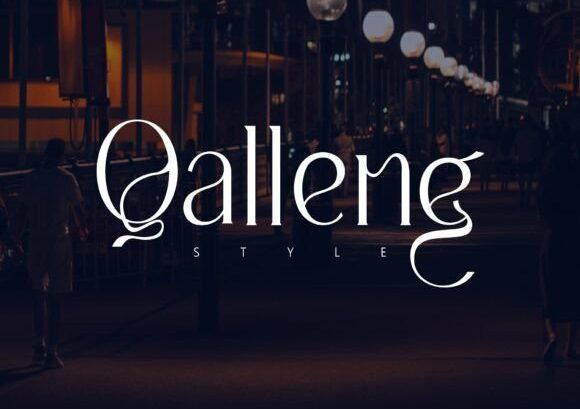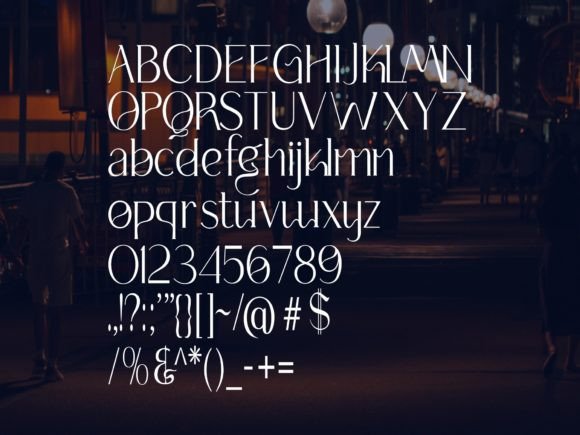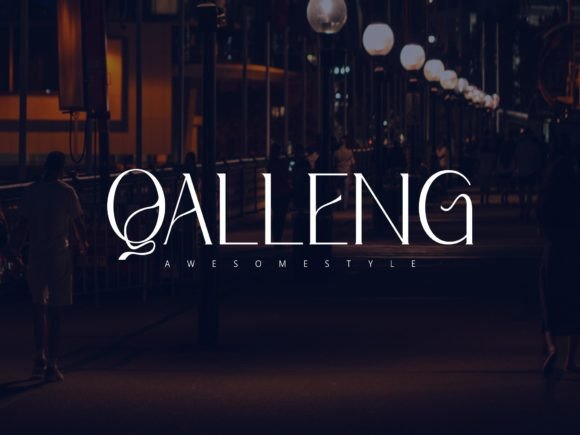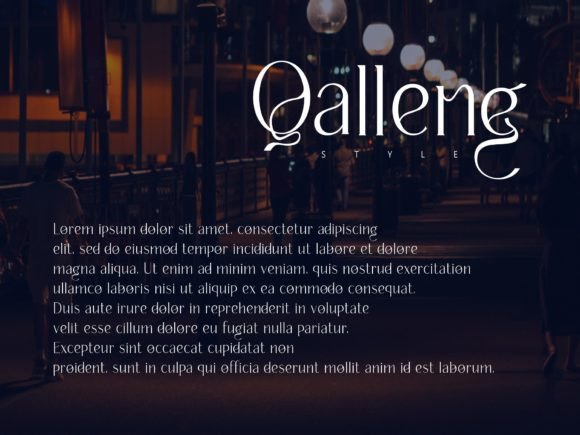
in Serif FontsQalleng FontAbout Qalleng Font 100 Views View Gallery 4 images QALLENG FONT SPECIMENQalleng is a simple slab serif font, perfect for anyone who needs a typeface for logo designs, magazines, social media, brochures, and many more. Qalleng Font Written by canyonadmin Leave a Reply Cancel replyYour email address will not be published. Required fields are marked *Comment *Name * Email * Website Save my name, email, and website in this browser for the next time I comment.